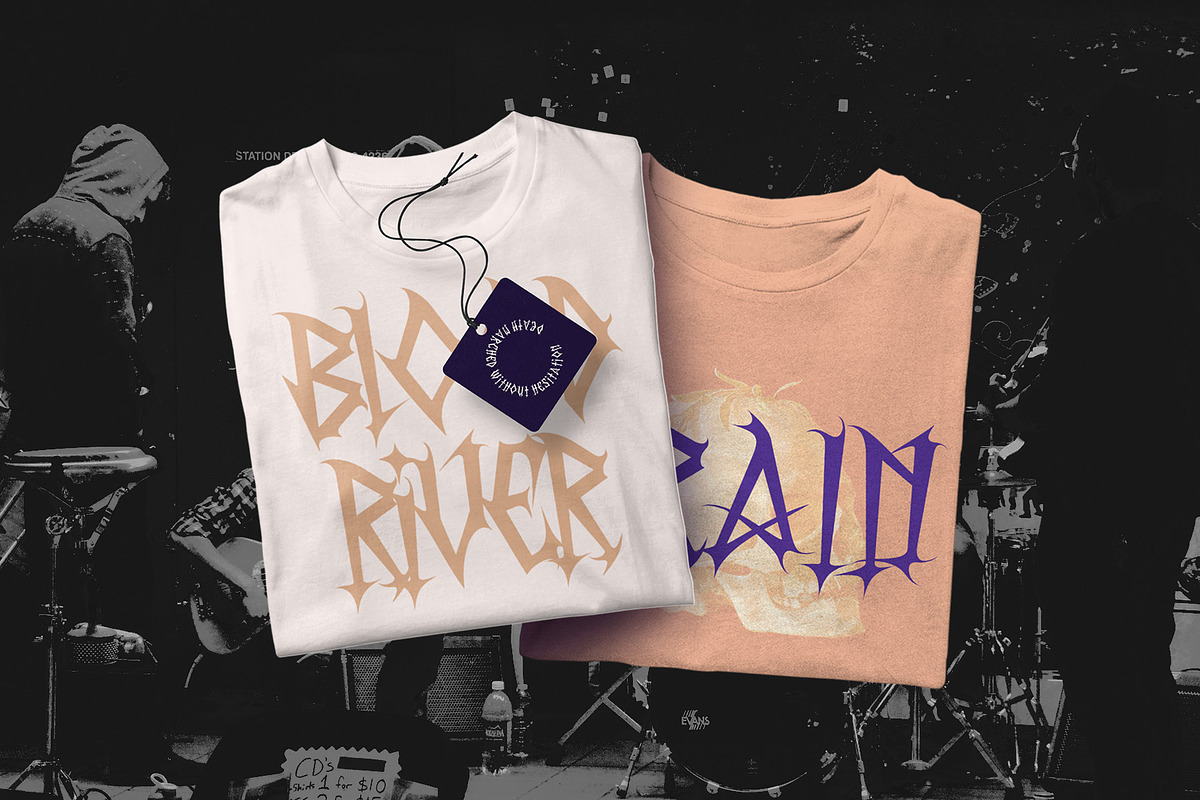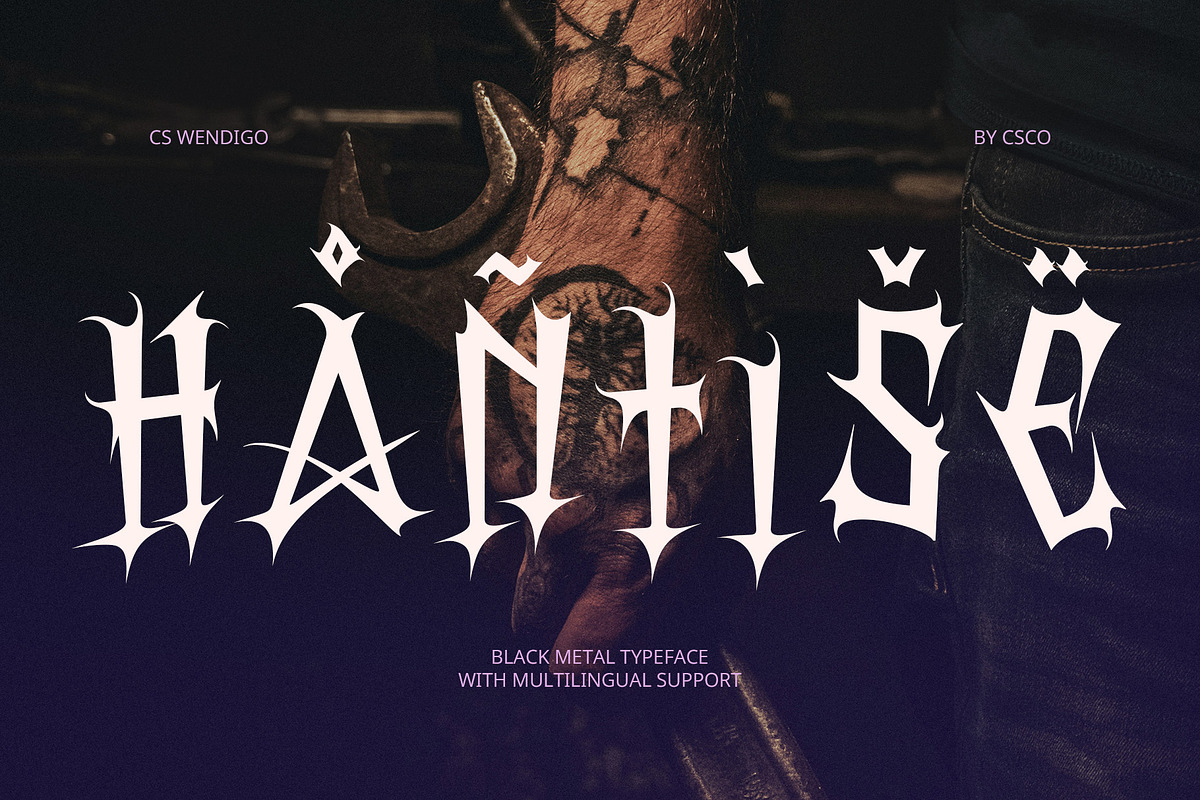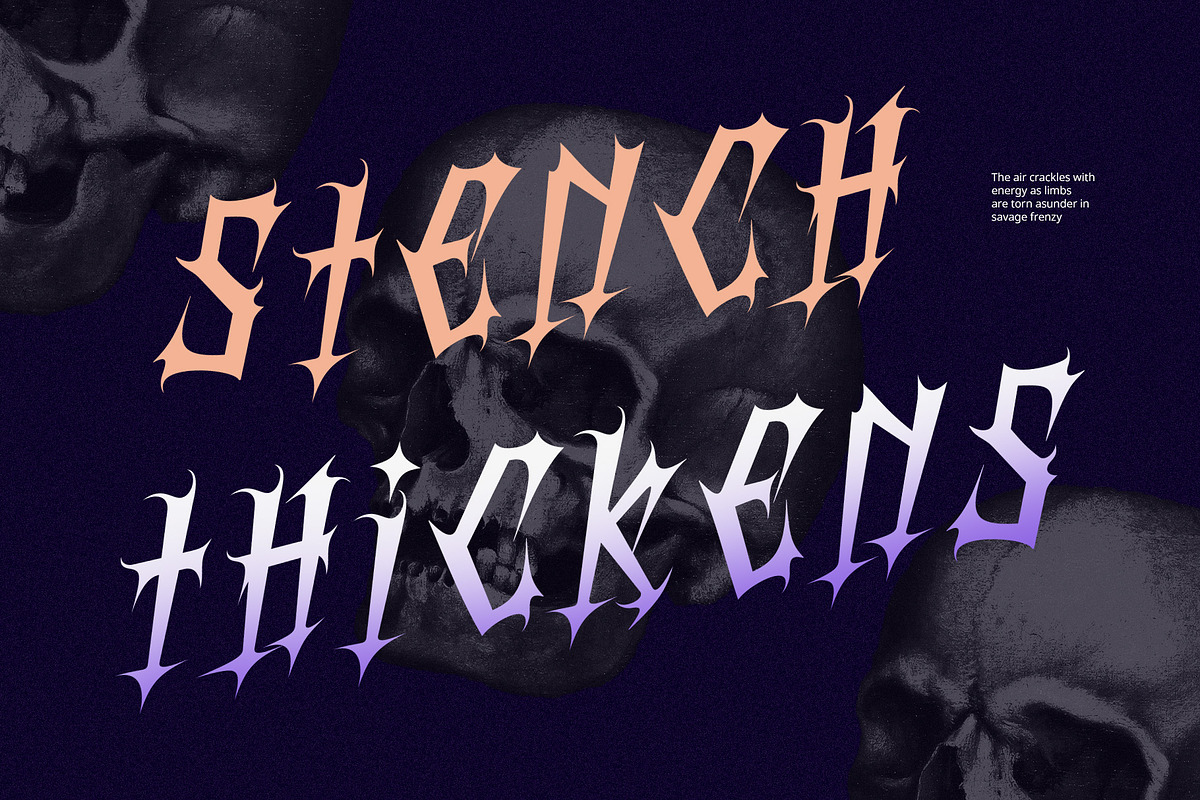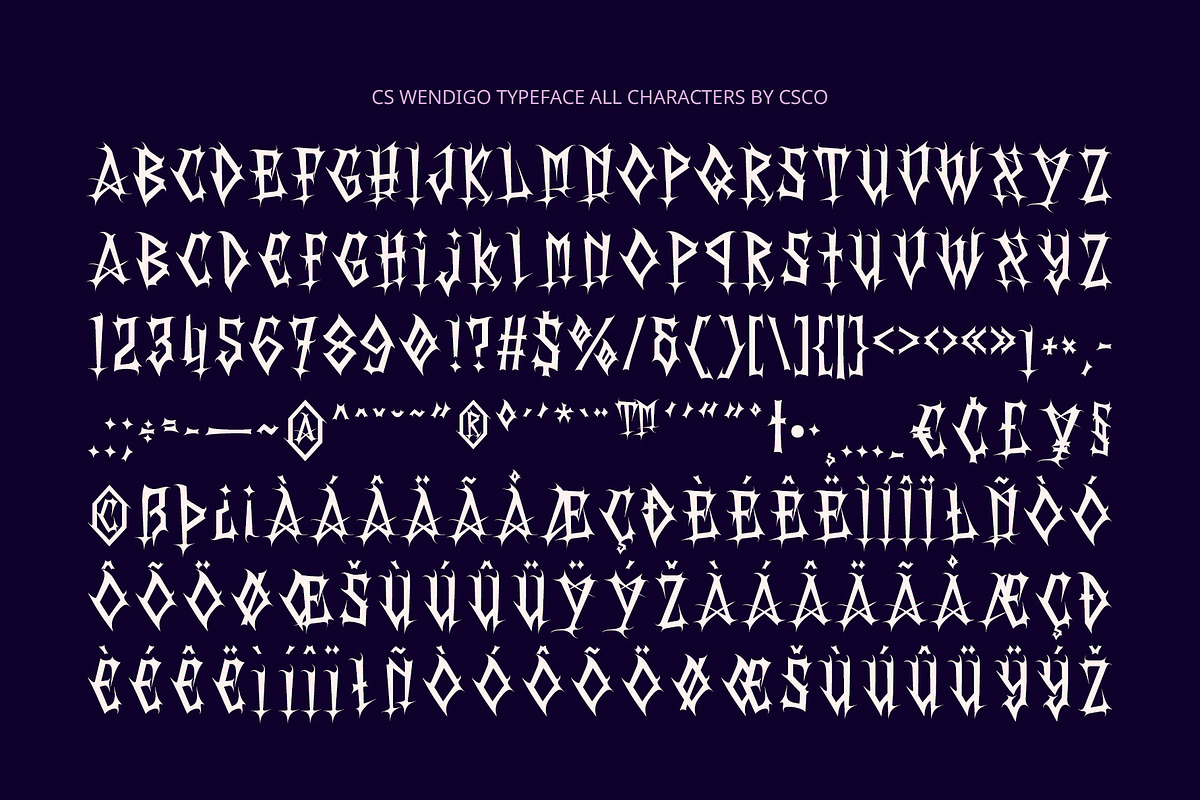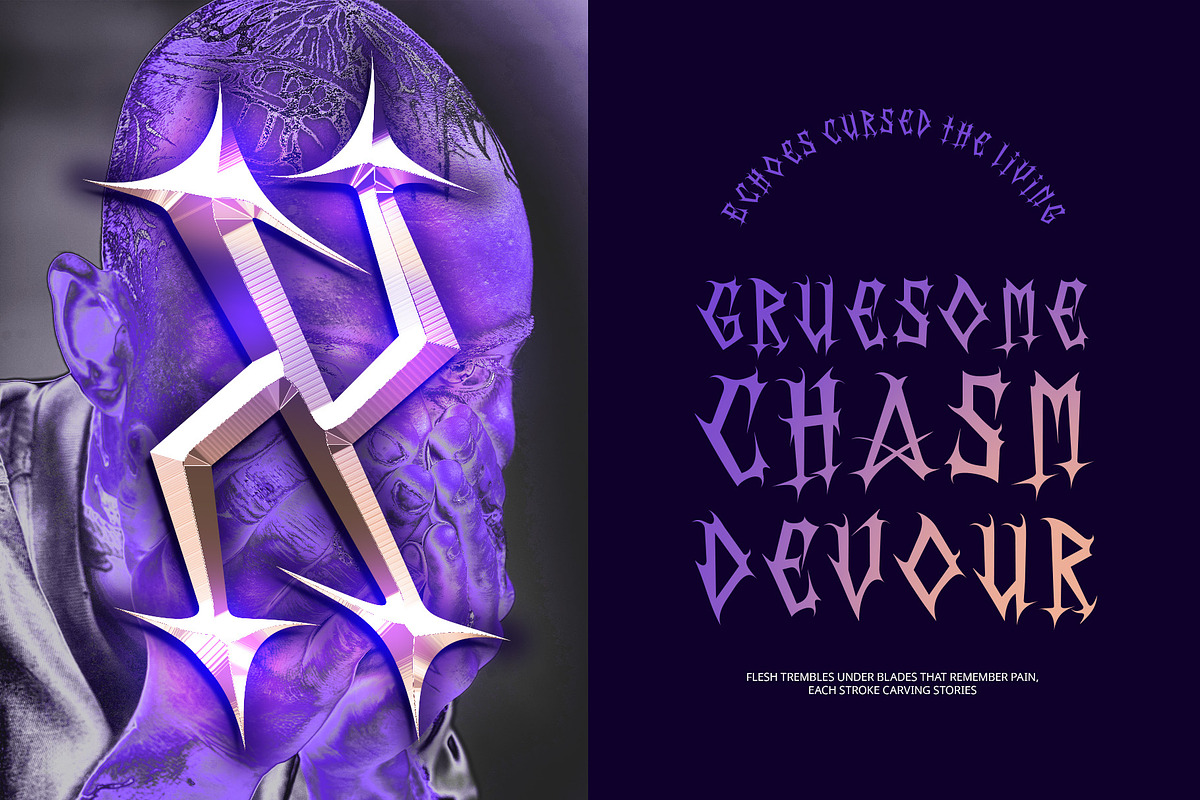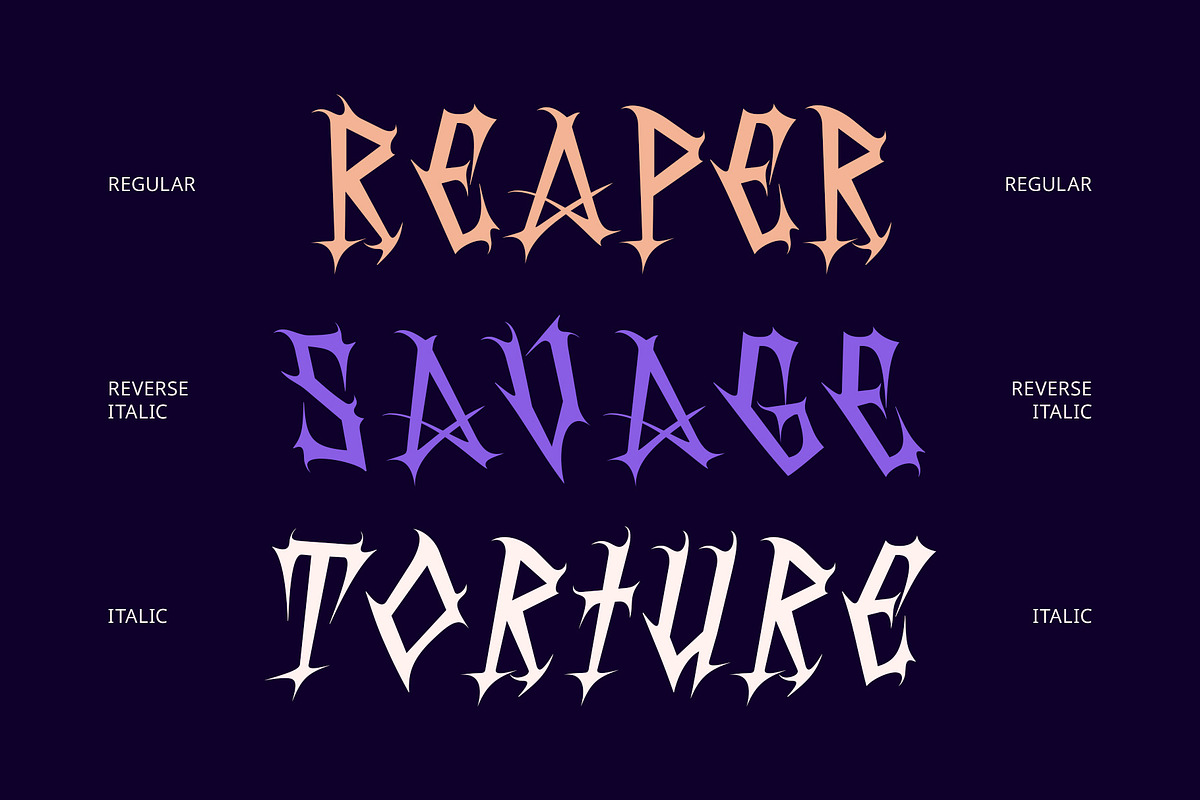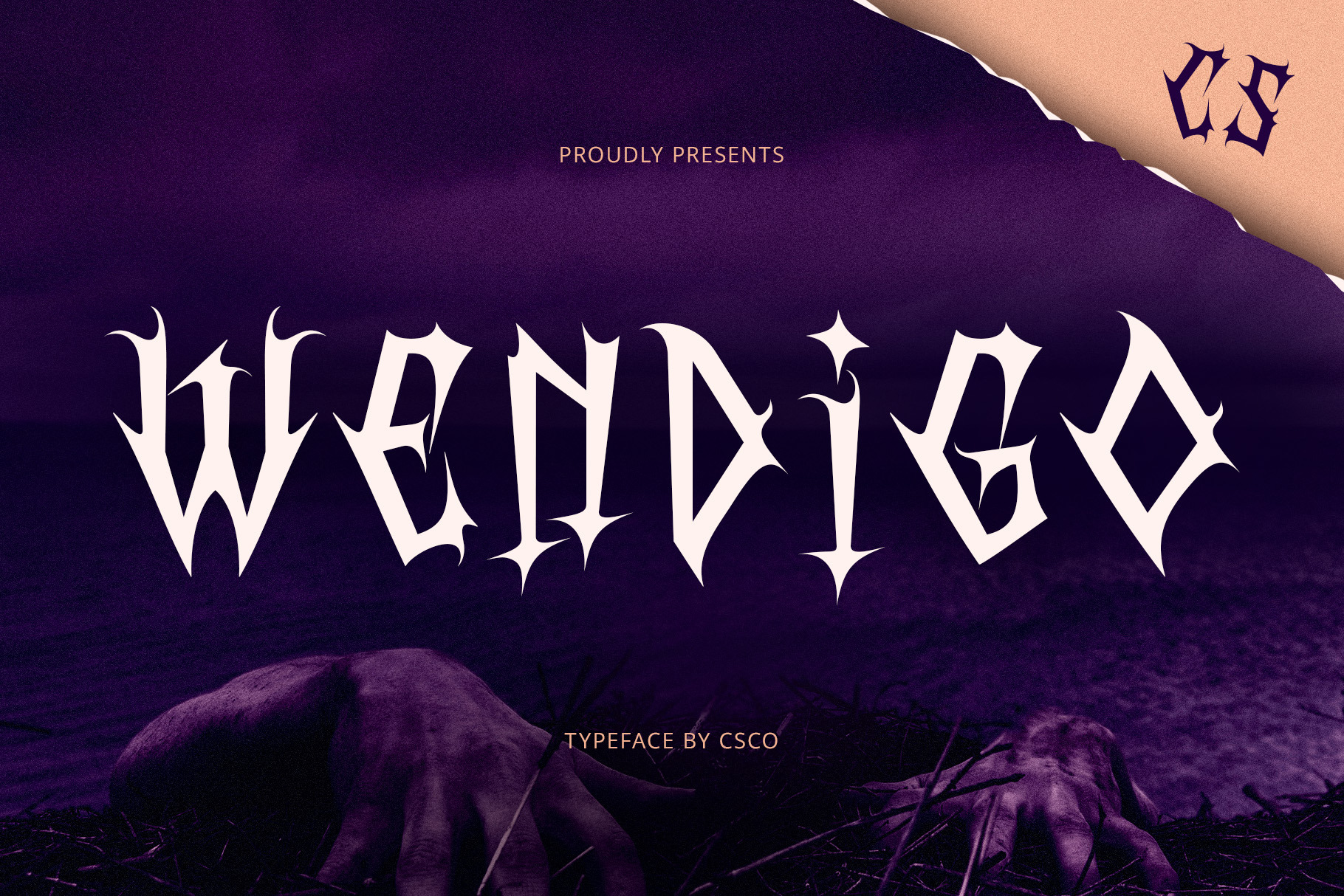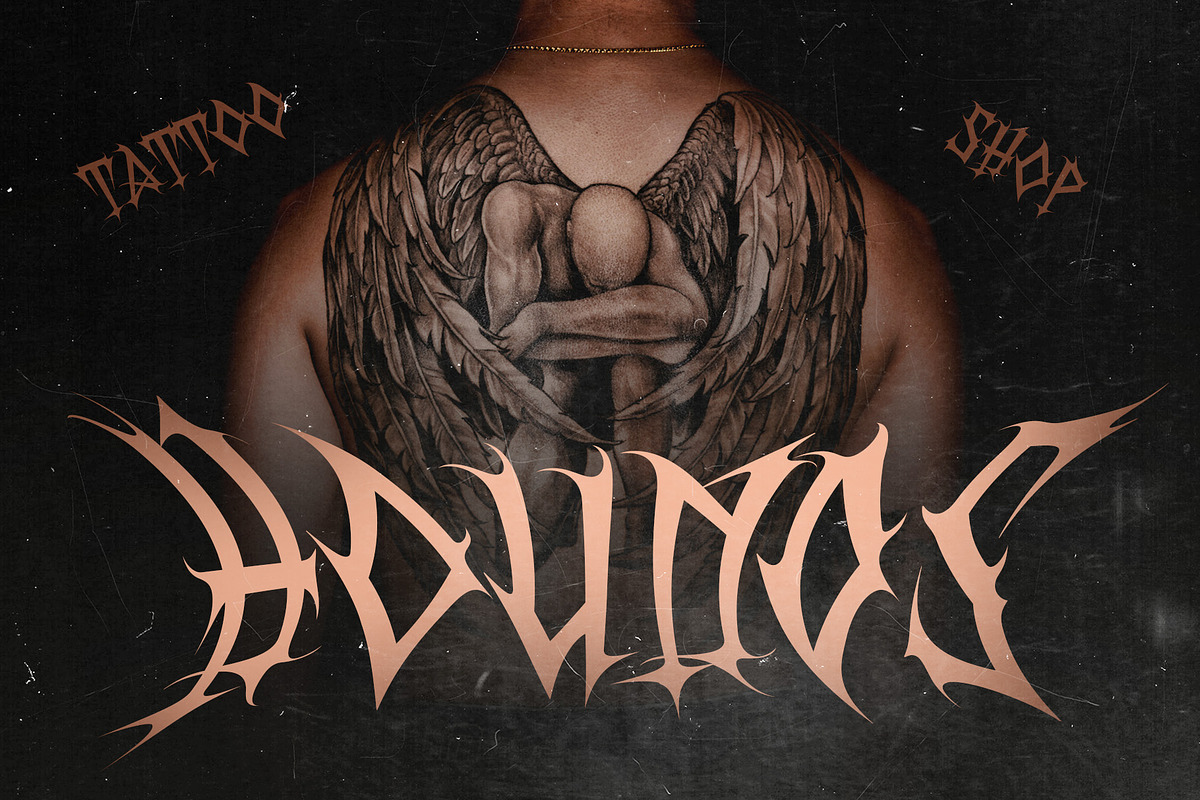
CS Wendigo – Black Metal Font
CS Wendigo – Black Metal Font: Bold, Mysterious, and Intense
Jagged, Sharp Letterforms for a Bold Impact CS Wendigo is a black metal display font that features jagged, sharp letterforms designed to create an immediate, bold impact. The aggressive, fractured shapes evoke a sense of mystery and rebellion, making it perfect for projects that need to make a strong, dramatic statement.
Eerie, Unconventional Design for Intense Atmosphere The eerie, unconventional design of CS Wendigo sets the tone for any project aiming to showcase mystery and darkness. The font’s angular and fragmented structure gives it an unsettling, yet captivating quality, perfect for creating an intense and atmospheric feel.
Perfect for Music Posters and Rebellious Branding CS Wendigo is the ideal choice for music posters, particularly within the black metal or extreme genres, where an aggressive and unconventional aesthetic is sought. Its sharp edges and chaotic form make it perfect for creating an image that’s rebellious and full of attitude.
Intense, Energetic, and Rebellious With its jagged, sharp letterforms and rebellious design, CS Wendigo brings a fierce energy to any creative project. It’s a font that thrives in projects that want to push boundaries and create a dramatic, bold atmosphere. Perfect for designs that need to communicate power, intensity, and a sense of dark rebellion, CS Wendigo is a must-have for those looking to make a statement with their typography.